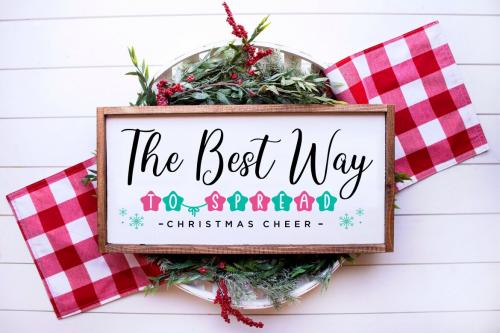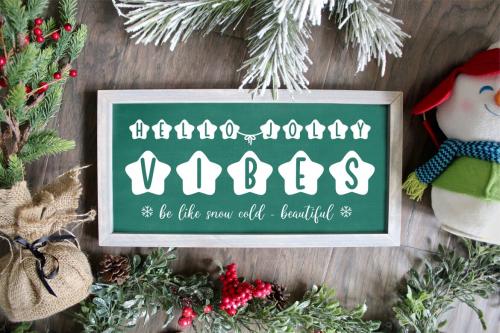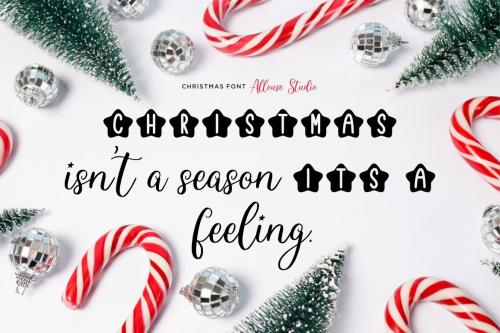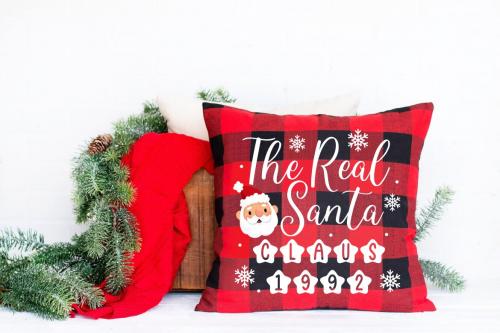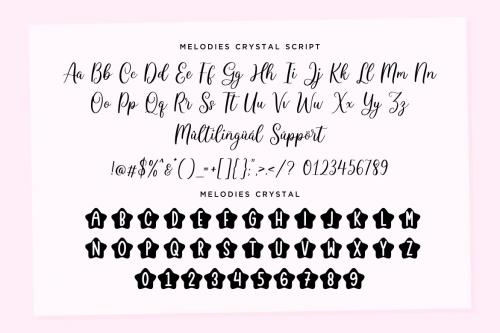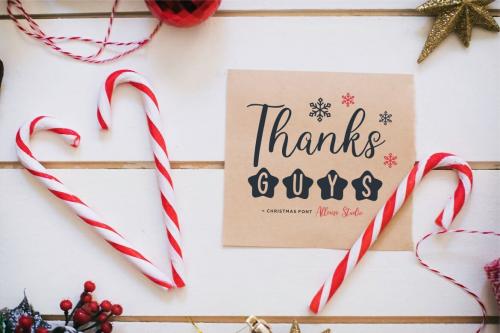
Proudly Present, Melodies Crystal
Melodies Crystal A Christmas Font Two Style
Melodies Crystal is perfect for product packaging, branding project, megazine, social media, wedding, or just used to express words above the background.